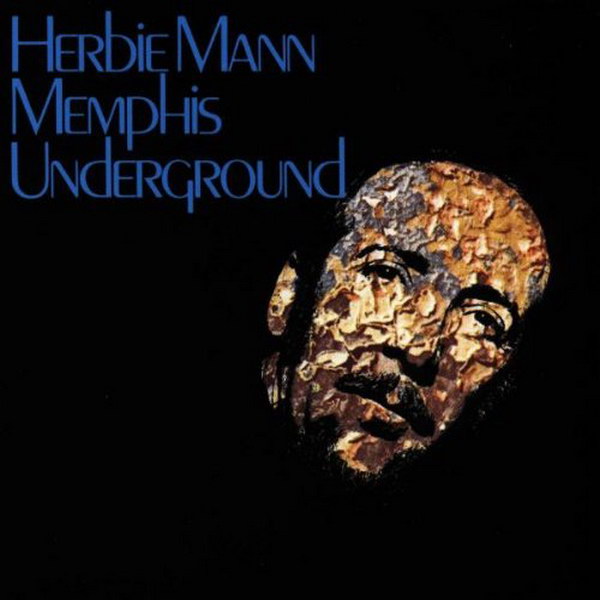
Memphis Underground Font
Fonts in UseMemphis Underground is a jazz-funk album by Herbie Mann, released in 1969. It features a fusion of jazz, R&B, and funk with elements of Memphis soul and includes the hit track "Memphis Underground."
The typeface featured on the cover is likely Peignot Light, a sans-serif display font constructed by A. M. Cassandre for the French foundry Deberny & Peignot in 1937. Peignot is unique for its absence of a conventional lowercase and further information on this typeface can be found here.